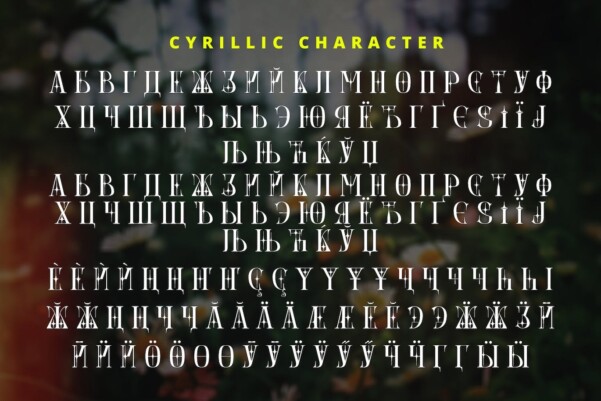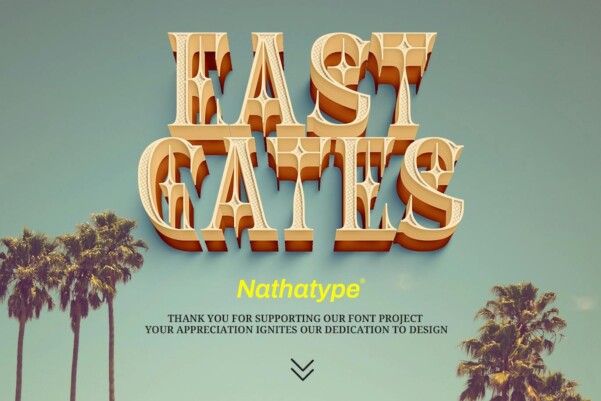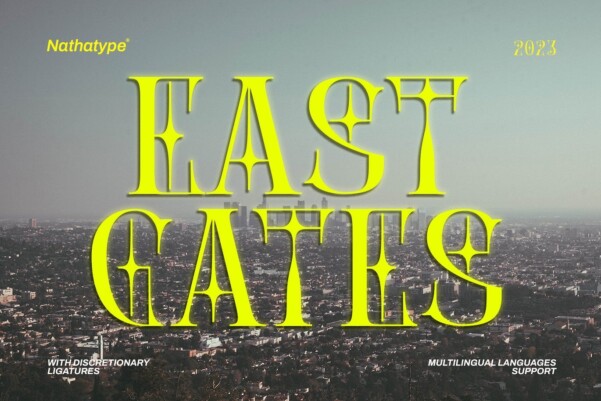
East Gates Font
East Gates Font is a mesmerizing display font that commands attention. Each letter is a work of art, meticulously crafted to elevate the overall appearance with a perfect blend of visible contrast and intricate details.
The characters in East Gates boast a generous size, ensuring a bold and impactful presence. The visible contrast between thick and thin strokes adds a dynamic quality to the font, creating a sense of both strength and delicacy. What sets East Gates apart is the enchanting ornamentation gracing the letters, enhancing the overall beauty with a touch of intricate design.